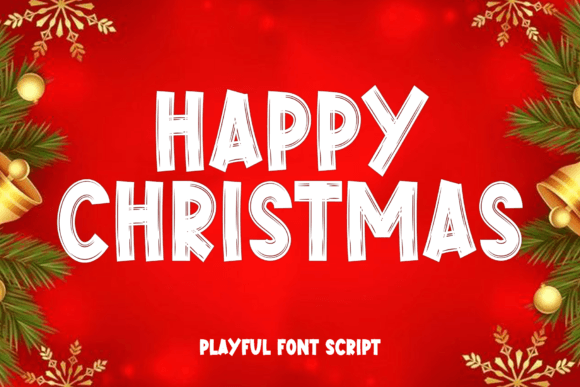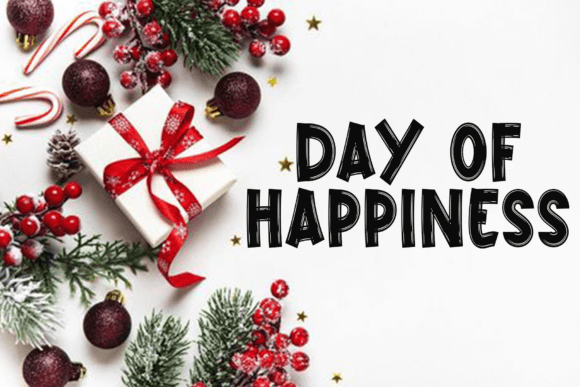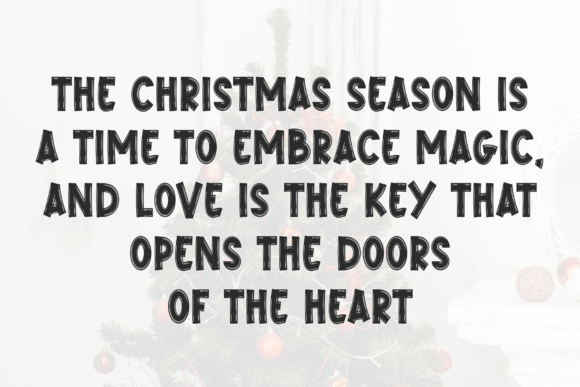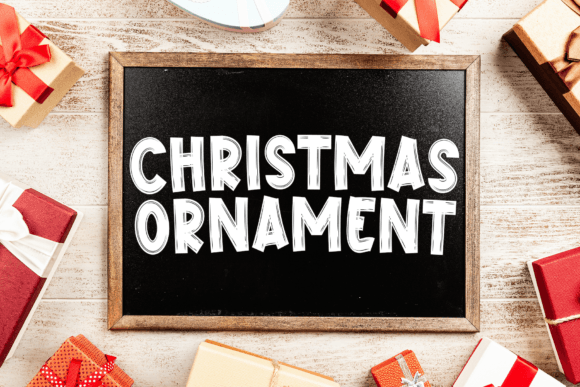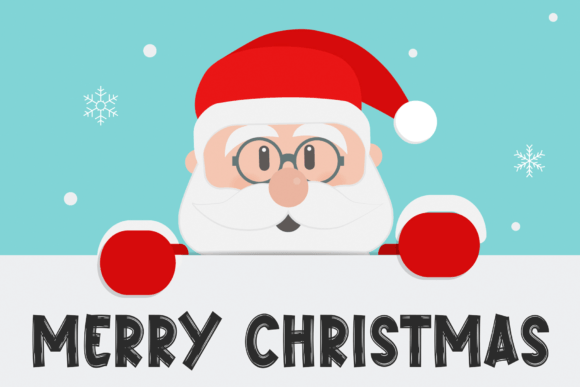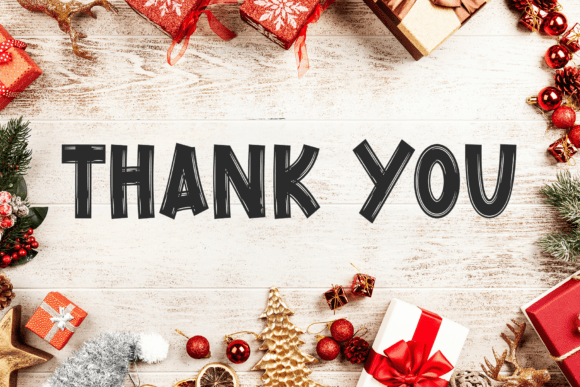
The Magic of Happy Christmas Font
There’s something special about creating holiday designs, isn’t there? The twinkling lights, the cozy atmosphere, and the joy of spreading cheer to loved ones. As a designer, you know how a single font can elevate your project from ordinary to extraordinary. That’s where the Happy Christmas Font comes in – a delightful typeface that captures the essence of the festive season.
This charming font is designed to add a touch of whimsy and nostalgia to your holiday projects. With its decorative elements and unique flair, it’s perfect for greeting cards, gift labels, and other festive designs. Whether you’re a seasoned pro or a holiday crafting newbie, the Happy Christmas Font is a valuable addition to your design toolkit. Its cheerful vibe will transport your audience to a winter wonderland of joy and celebration.
- Unique Characteristics: Features a festive and playful design with bold lines and colorful elements, perfect for Christmas-themed designs.
Happy Christmas Font Review
As a designer, I’ve had the chance to play around with the Happy Christmas Font, and I must say it’s a mixed bag. Here’s my honest review.
- Christmas-y vibes: The font has a clear festive feel to it, perfect for holiday-themed projects or promotions.
- Fun and playful: The font’s whimsical nature makes it great for adding a touch of personality to your designs.
- Customizable: The font comes in a range of weights and styles, allowing you to tailor it to your specific needs.
- Not ideal for body text: The font’s playful nature makes it hard to read in large blocks of text, which can be a challenge for projects where readability is key.
- Limited flexibility: While the font has some customization options, it’s not as flexible as some other fonts on the market.
Overall, I’d say the Happy Christmas Font is a great addition to any designer’s toolkit, but it’s best suited for specific projects where its festive feel can shine. With some careful consideration of its limitations, you can create some truly unique and eye-catching designs.
The Happy Christmas font is perfect for creating festive and playful designs, such as:
– Christmas cards and invitations
– Holiday social media graphics
– Party decorations and signage
– Gift tags and wrapping paper